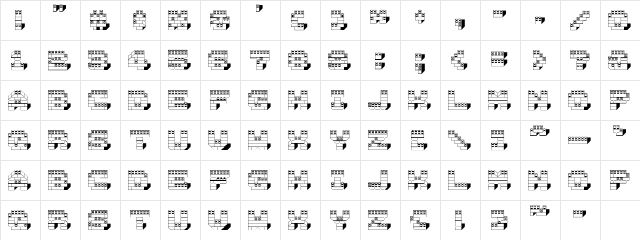
LogoSystemFront Regular
Design Context for LogoSystemFront Typeface
LogoSystemFront is a composed and adaptable typeface that performs quietly and consistently across a wide range of design contexts.